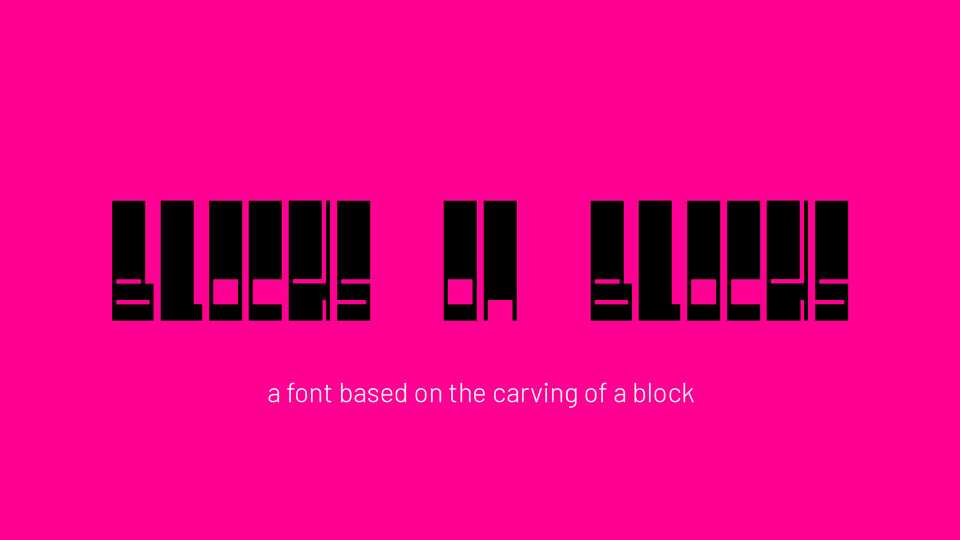
Download Blocks on Blocks font, a tall and narrow display typeface in one weight based on the carving of a block. Blocks on Blocks is best for posters and headlines.